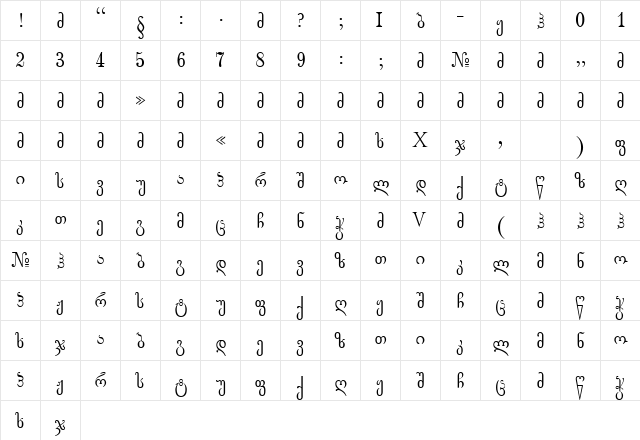
Geo_Gogebasvili Regular
Design Context for Geo_Gogebasvili Typeface
Geo_Gogebasvili is a composed and adaptable typeface that performs quietly and consistently across a wide range of design contexts.